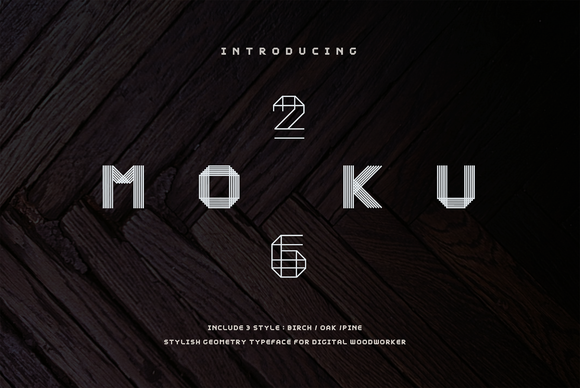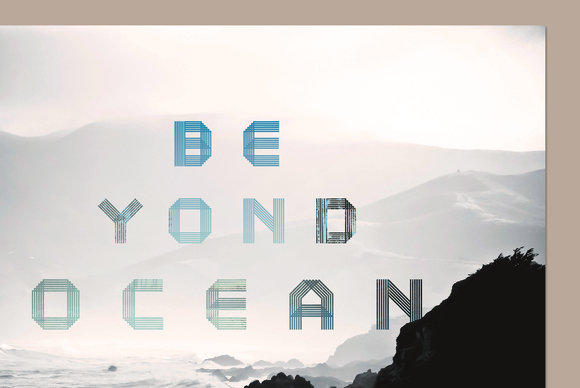
Stylish geometric typeface for the digital woodworker.
Inspired by old fashion woodworkers, MOKU26 brings a great experimental look and sophisticated style to branding. Available in 3 styles; Birch, Oak, Pine. Ideal for titles, logo, branding, digital and apps.